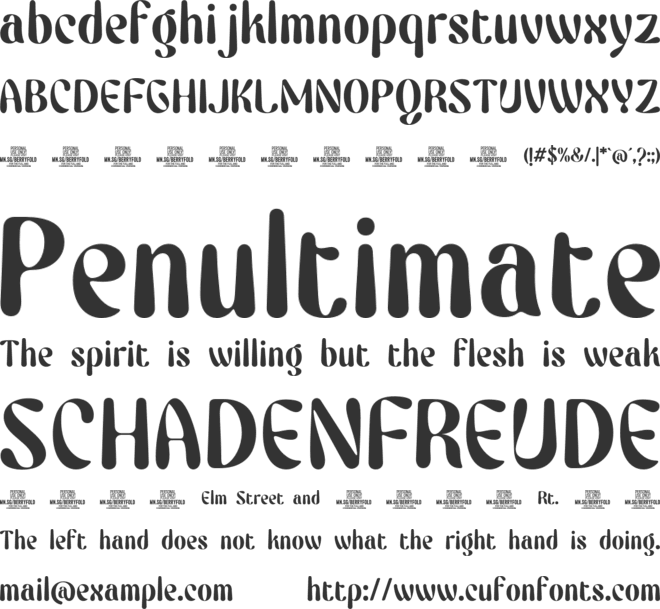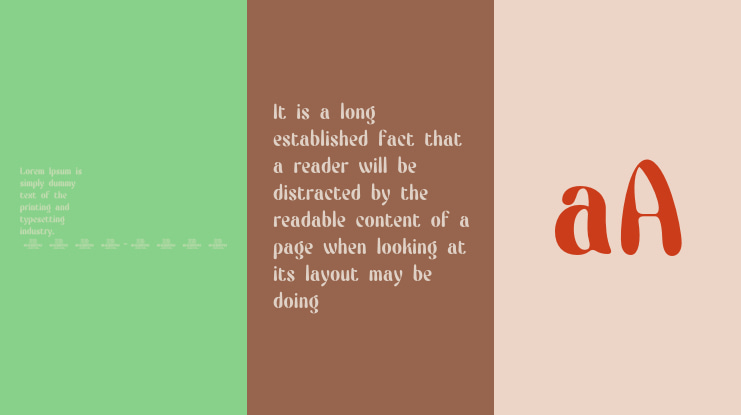
Berryfold PERSONAL USE Font
NOTE: This font is for PERSONAL USE ONLY!To purchase a commercial license, visit:https://www.mansgreback.com/product/berryfoldBerryfold is a soft and rounded display font with a playful weight and gentle rhythm.The letters have a friendly fullness, with smooth curves and slightly quirky proportions that make the text feel warm and approachable. It carries a lighthearted tone without becoming childish, and the consistent stroke weight gives it a steady, confident presence. Berryfold reads clearly at larger sizes while still keeping its character intact, making words feel shaped rather than constructed.For questions, please visit https://mansgreback.com/faq
Berryfold PERSONAL USE font preview